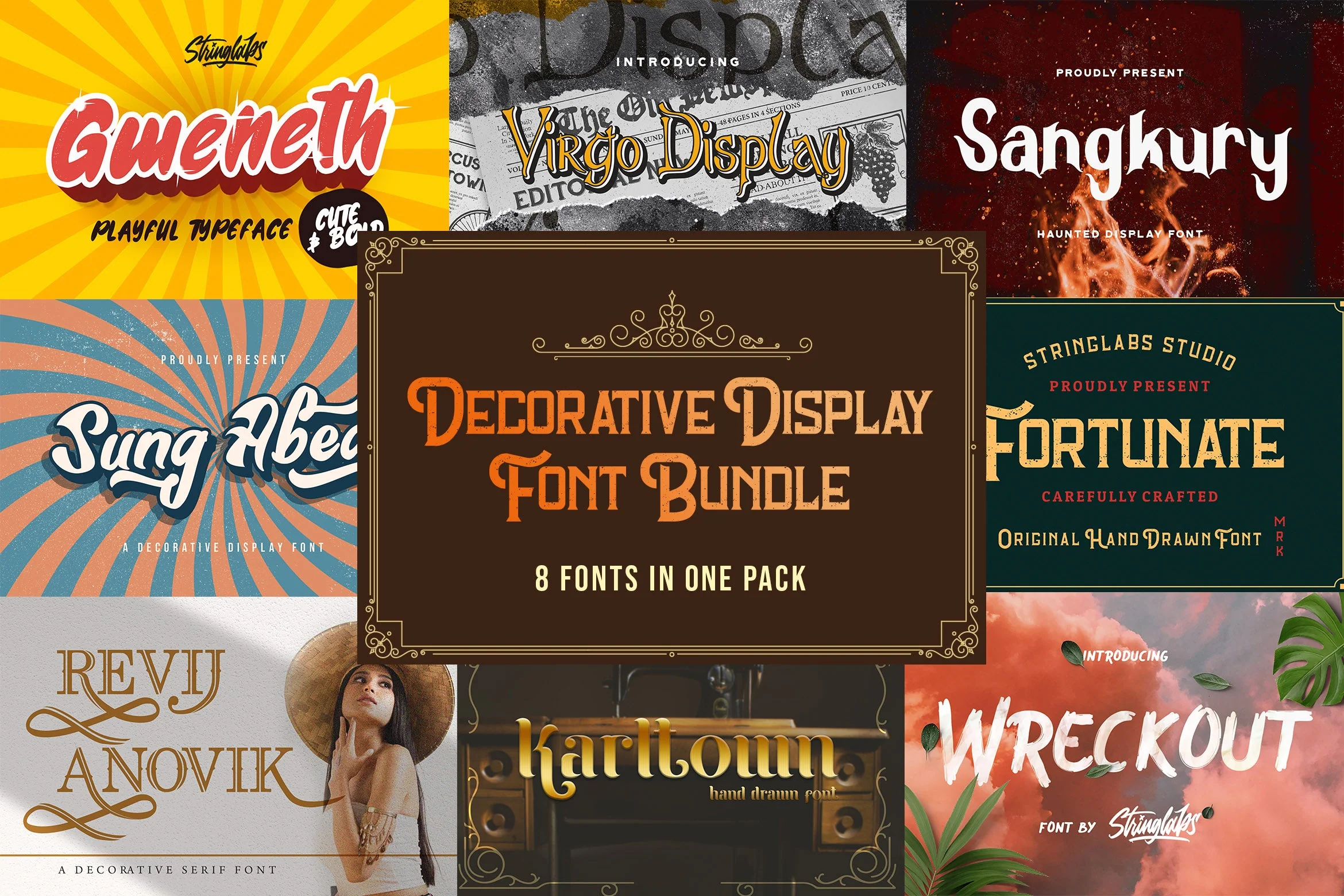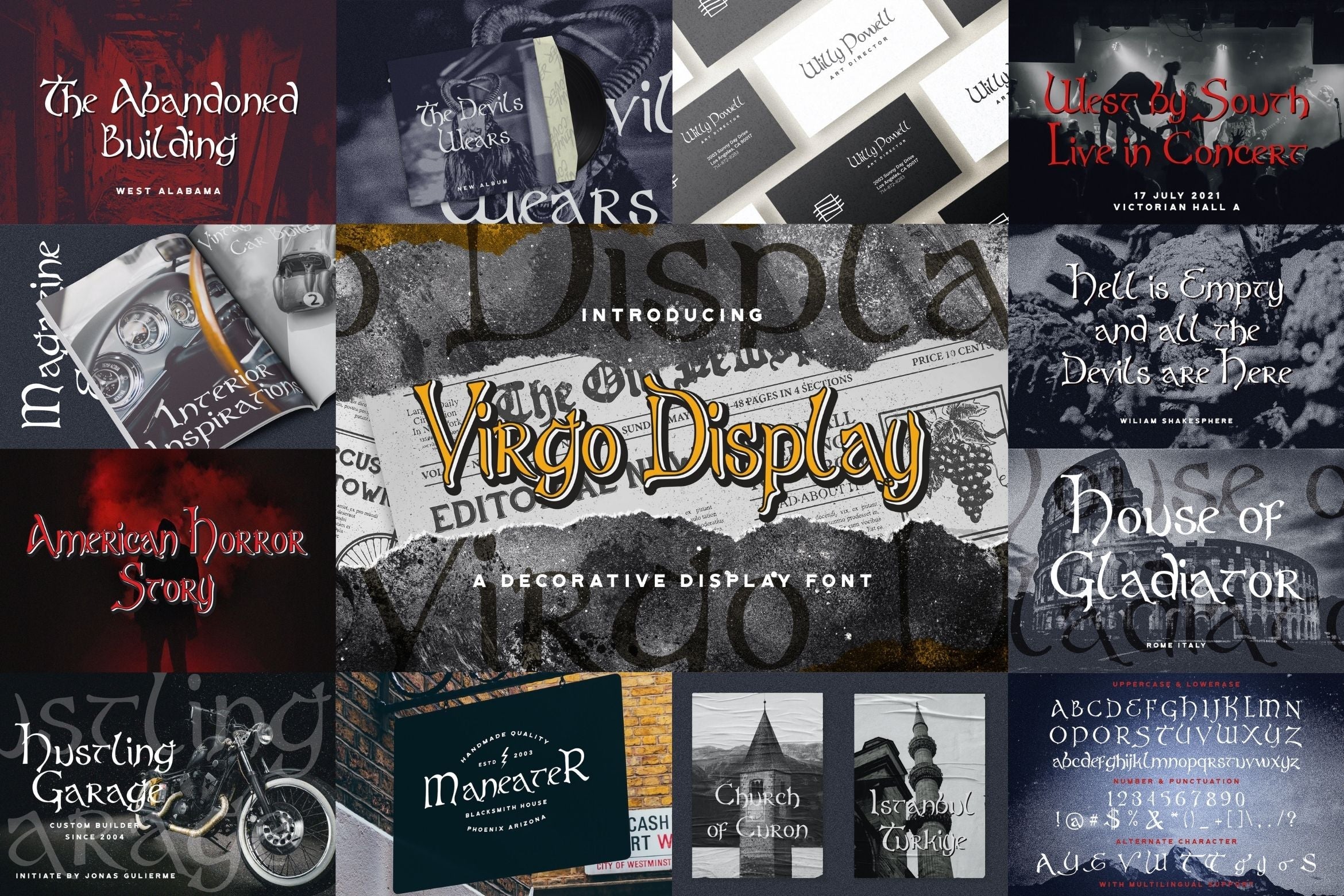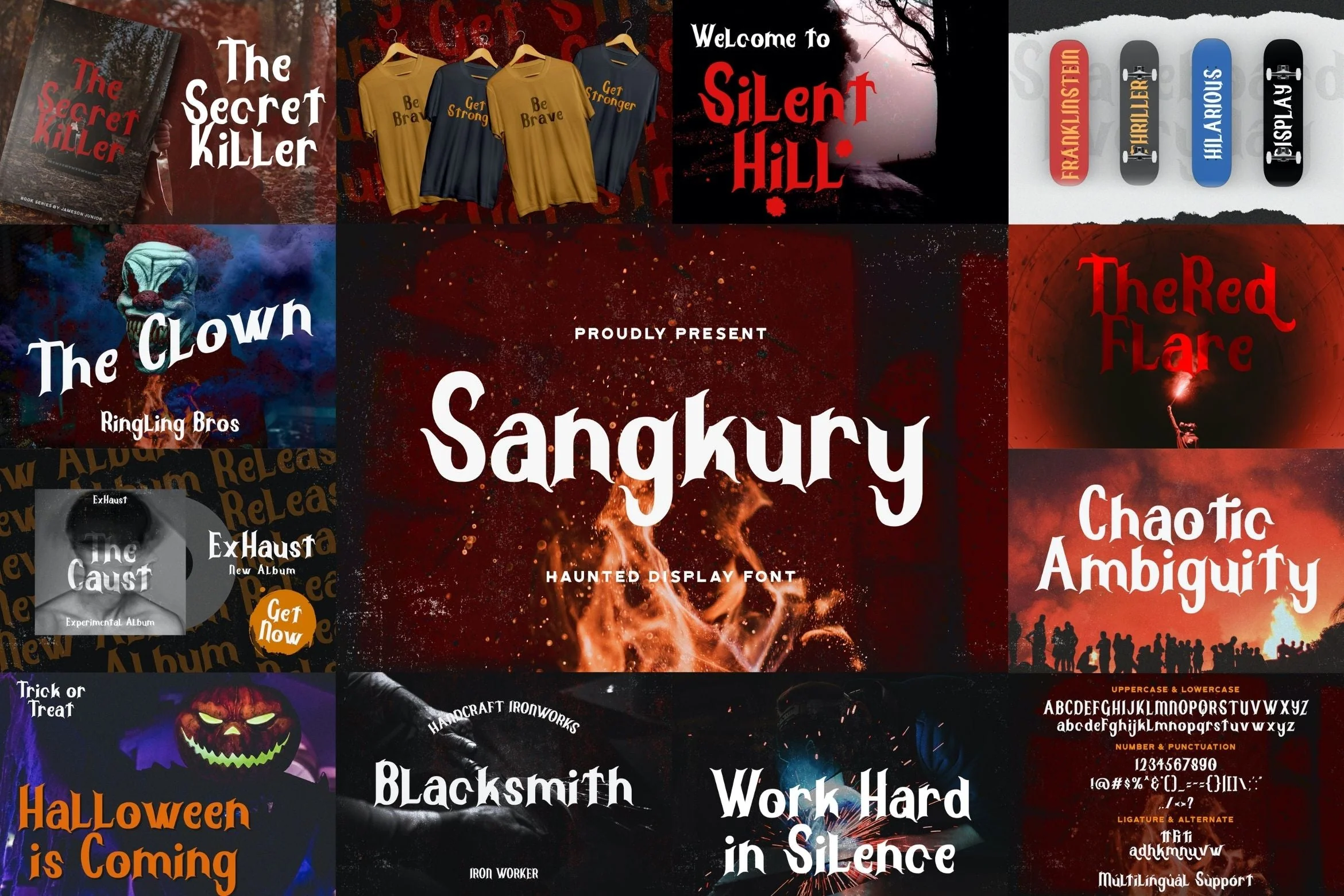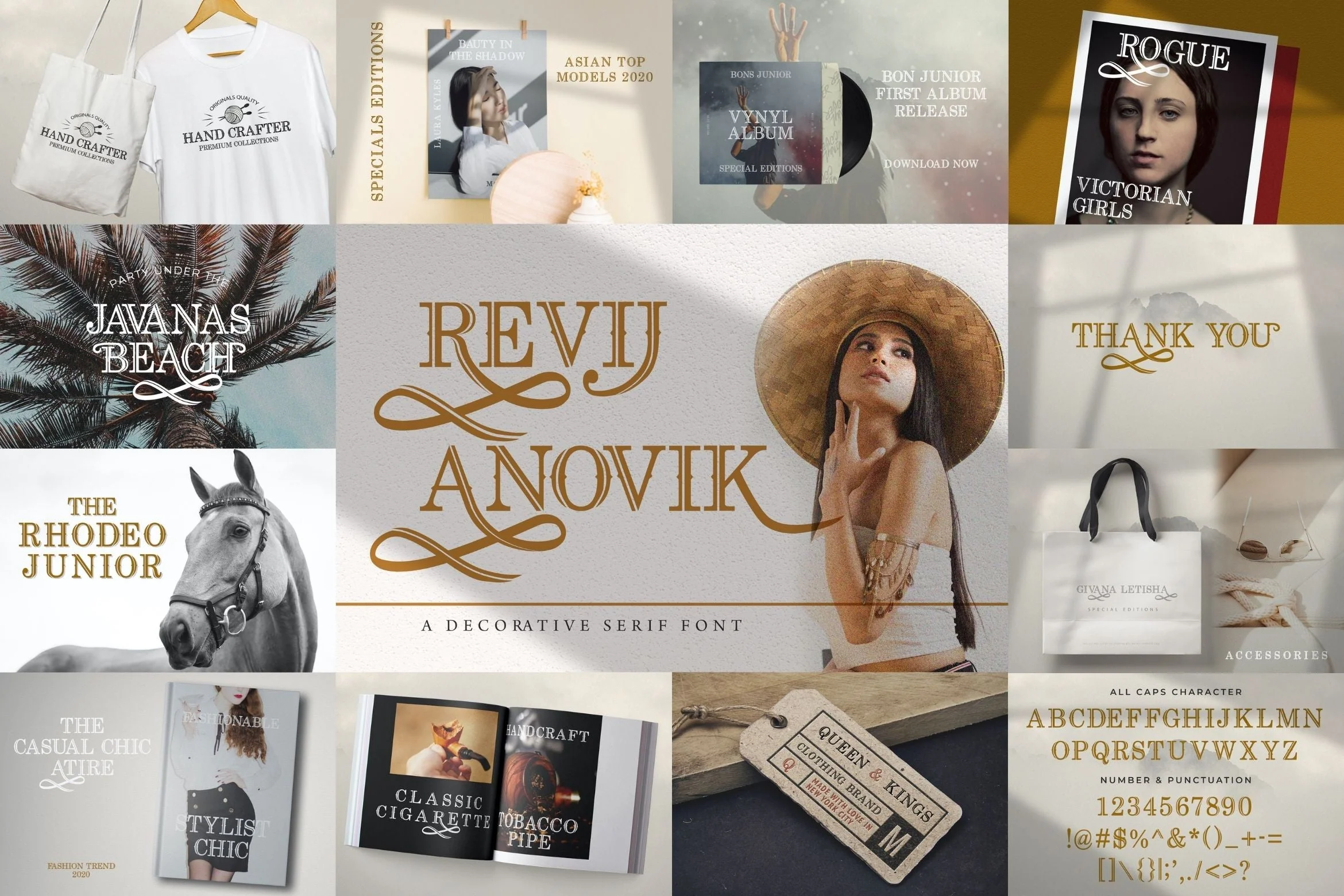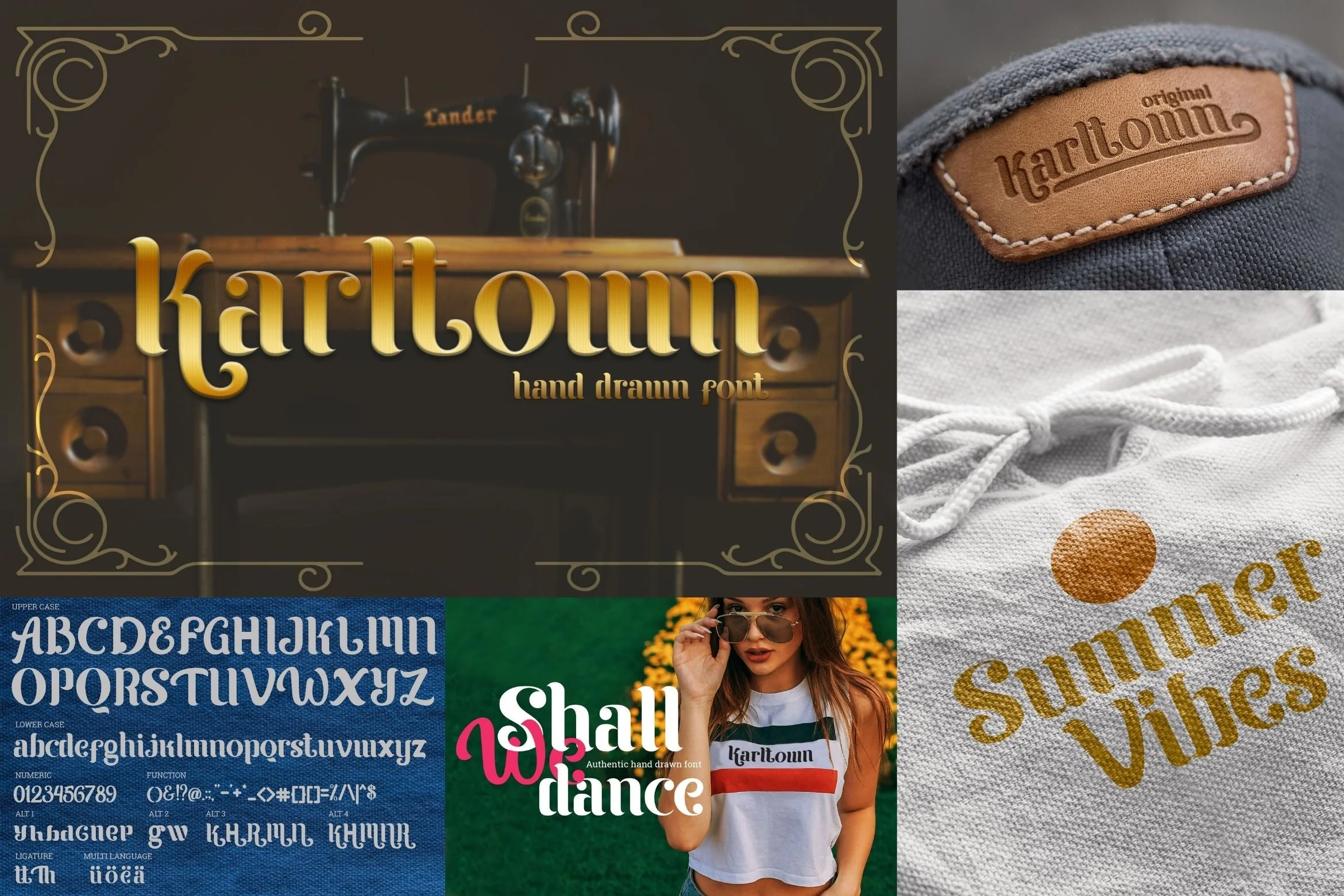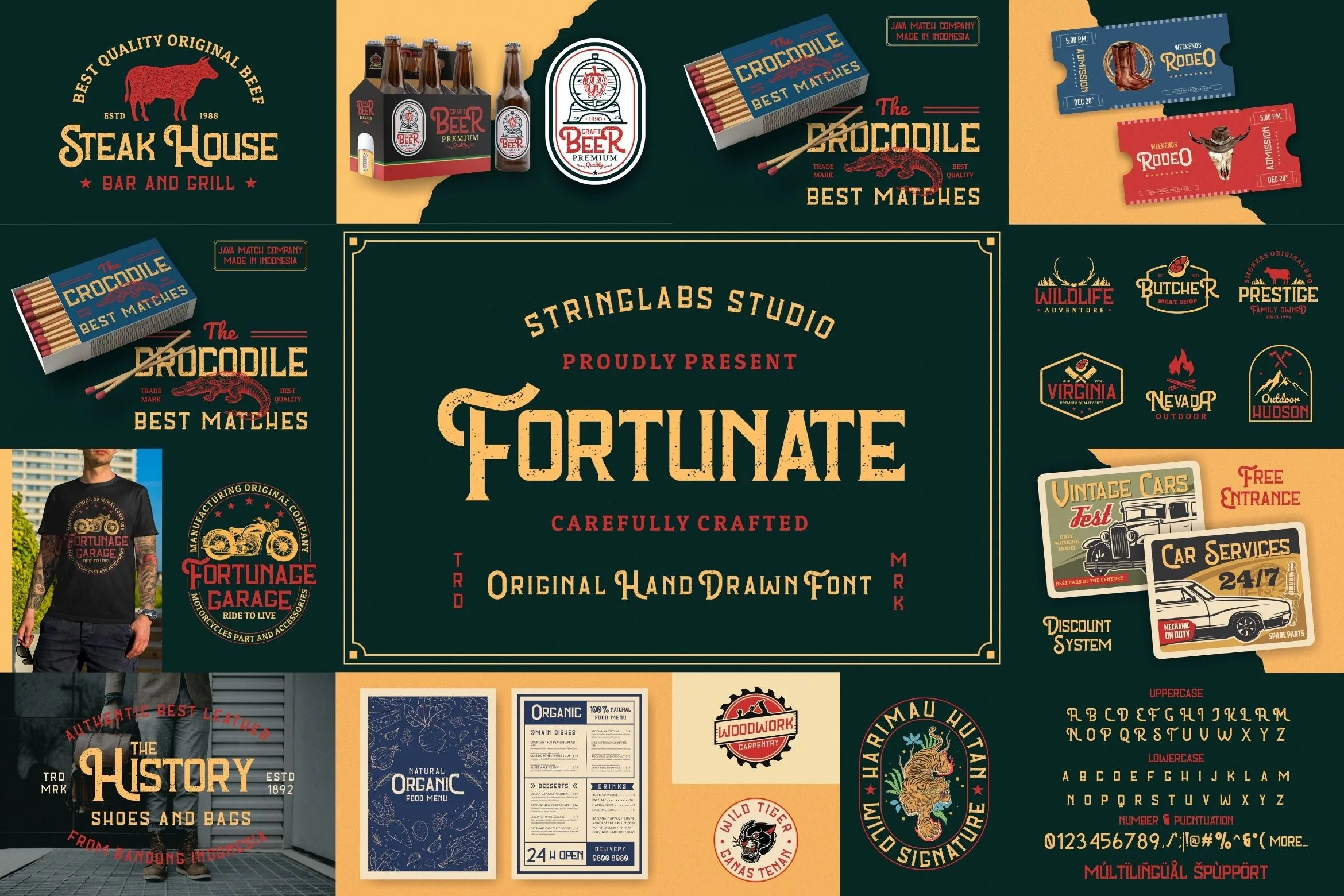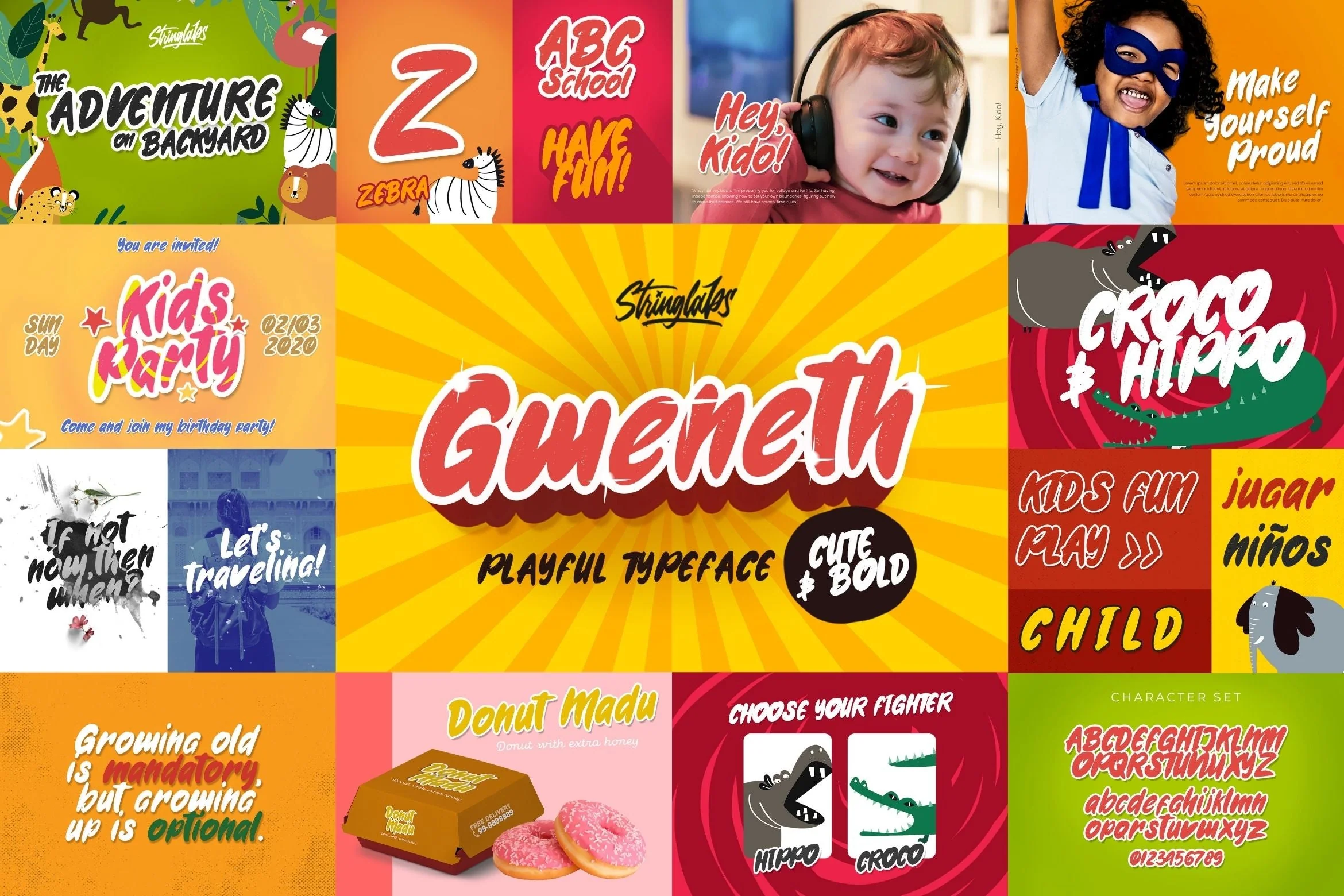
Decorative Display Font Bundle
Decorative Display Font Bundle is gorgeous display font with decorative vintage style. This font bundle contains 8 high quality decorative display font, it will look simply magical in a wide range of design projects, and also that will look particularly adept when used in logos, branding, packaging design, and much more. This masterfully designed display font is a true must-have.
1. Gweneth
2. Fortunate
3. Wreckout
4. Karltown
5. Revij Anovik
6. Sung Abed
7. Sangkury
8. Virgo Display